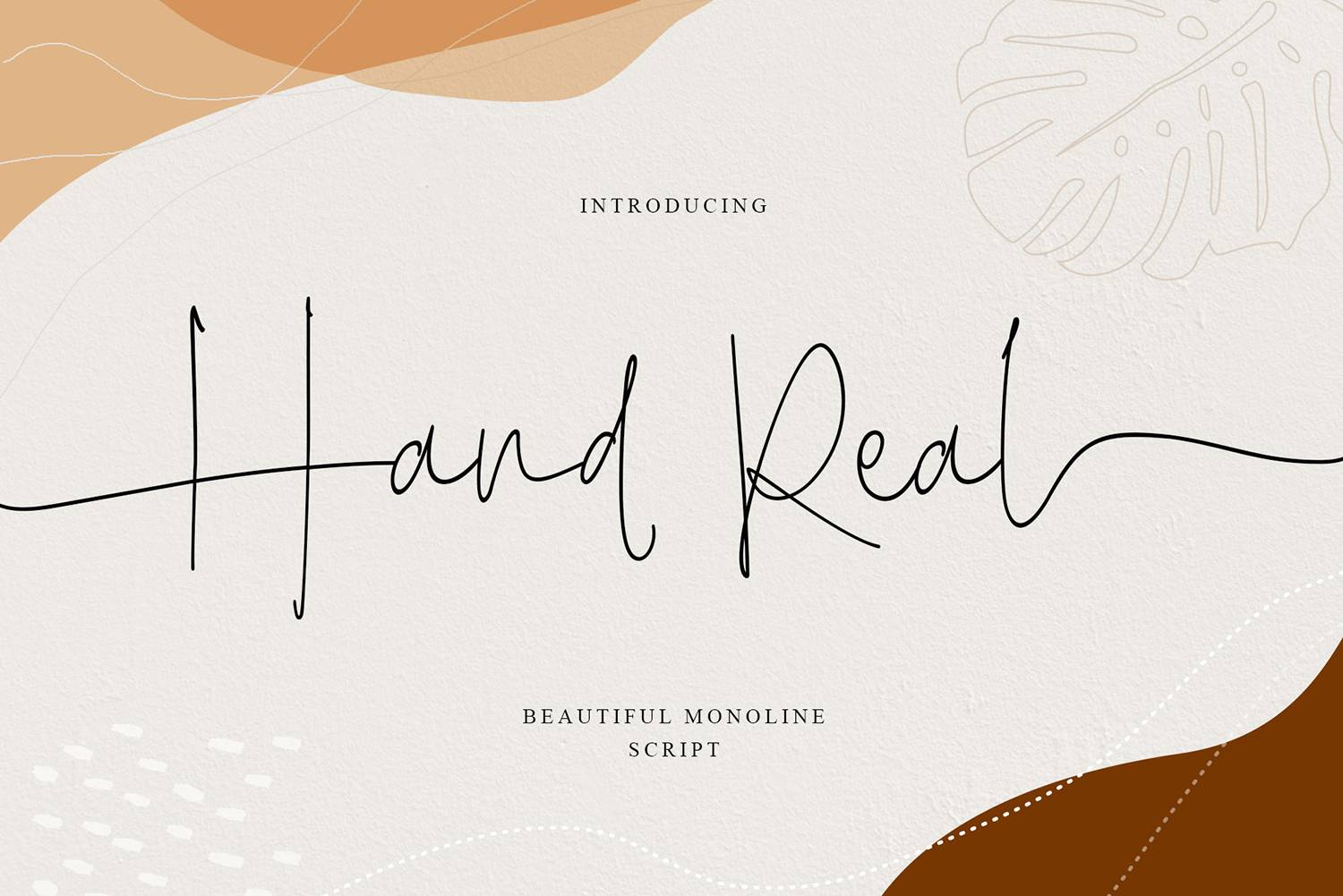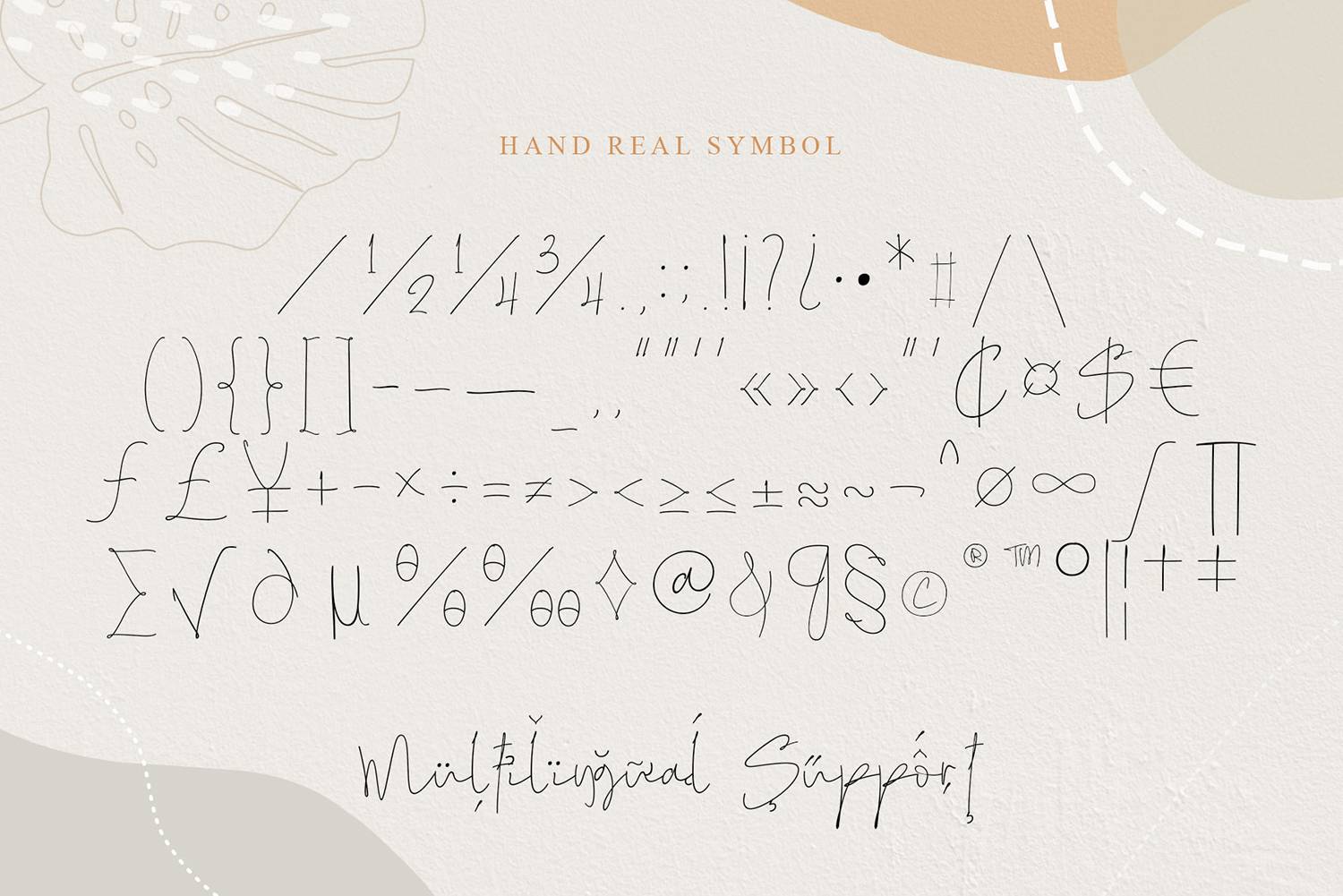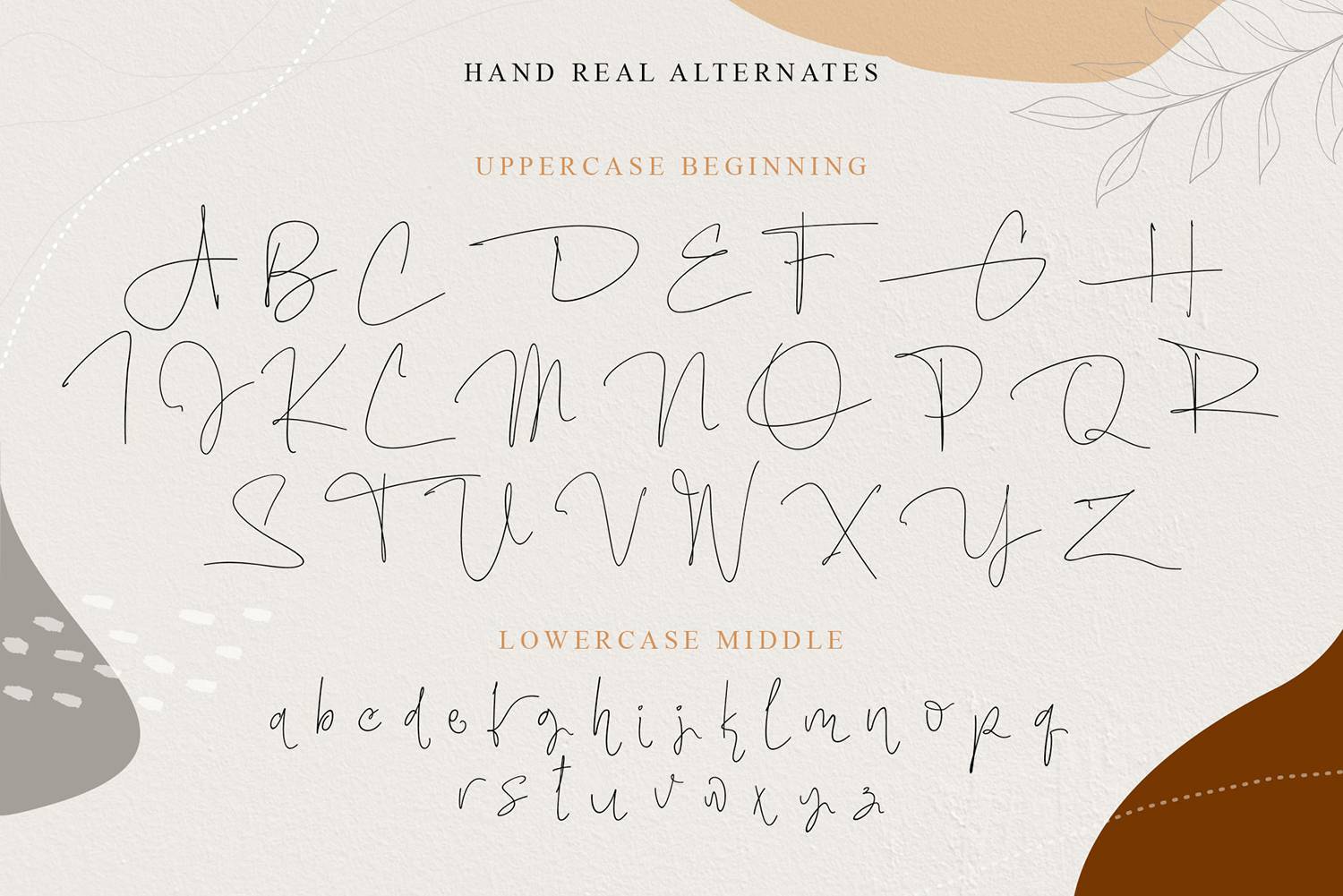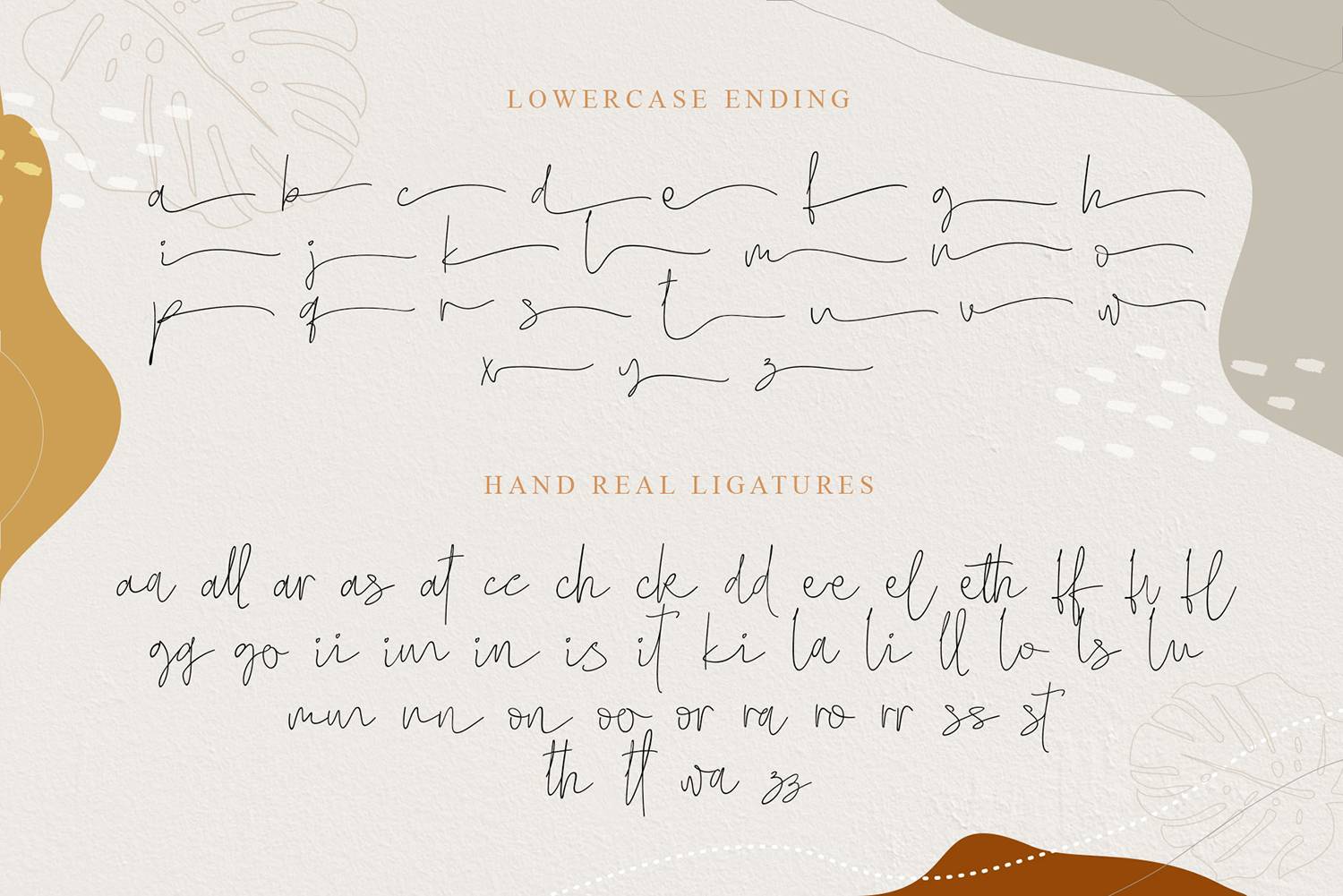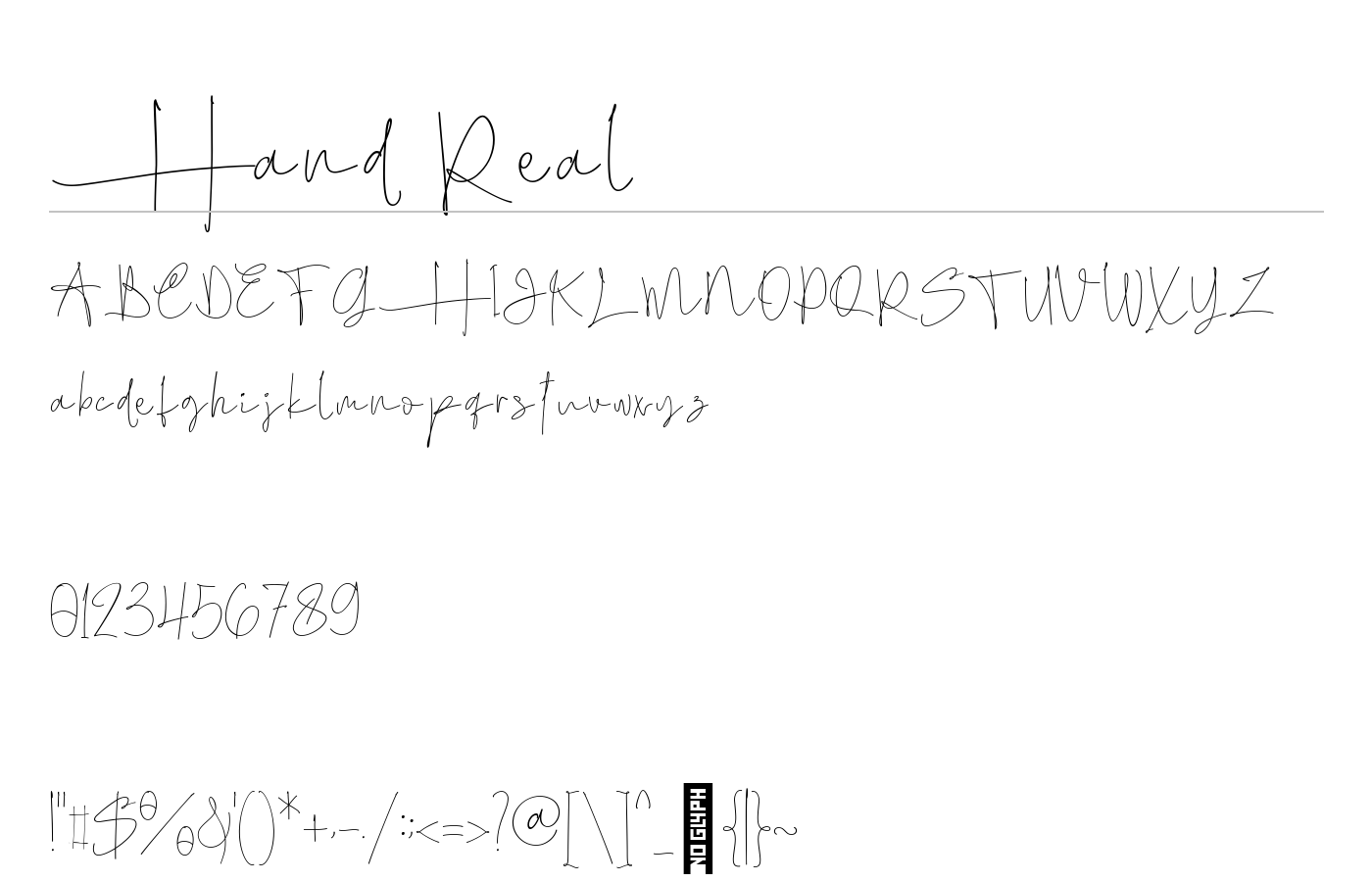
Hand Real Font is a delicate and thin handwritten script that captures the natural flow of real handwriting with its slender, airy strokes and whimsical character shapes. Its light weight and casual style make it perfect for adding a personal, intimate touch to creative projects like invitations, greeting cards, and boutique branding, where a subtle yet expressive aesthetic is desired.
Hand Real Font
About Hand Real Font
| Font family | Hand Real Font |
| Designer | Ny Indrayana |